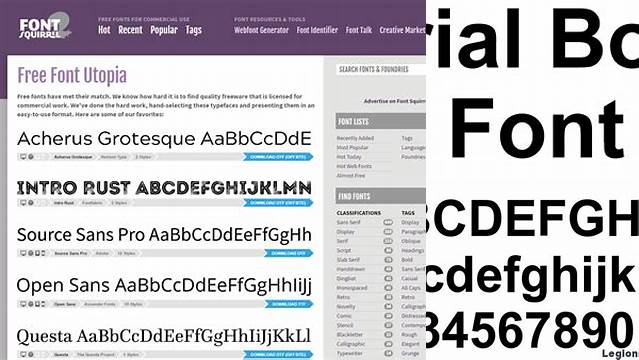
Arial Bold Font Free Download & Uses: A DaFont Guide
Arial Bold Font: Free Download from DaFont and Its Uses
Why Arial Bold Matters: A Deep Dive
Okay, so you're probably thinking, "Arial? Isn't that a bit... basic?" And sure, Arial itself is a pretty standard font. But Arial Bold? It’s in a league of its own. It's a workhorse, a reliable friend, and a design staple for a reason. It's the bold, attention-grabbing version that adds that extra punch you need. The first thing that makes Arial Bold so appealing is its incredible readability. Whether you're putting together a quick flyer, designing a website, or crafting a presentation, you need a font that's easy on the eyes, especially when you’re aiming for high visibility. Arial Bold nails this. Its clean, sans-serif design means that each letter is clear and distinct. No fancy swirls or extra fluff to distract your audience. Its versatility is another major plus. It blends seamlessly into various design contexts. You can use it in print or on digital platforms, and it works just as well. It is perfect for headlines and subheadings but can also work in shorter bodies of text. Another advantage is its widespread availability. You'll find Arial Bold on almost every computer. Its universal presence ensures your design looks the same to everyone, no matter their device. This is a big deal for branding and consistency. For instance, if you are designing a logo, having a font like Arial Bold already installed on most computers means that your designs will be displayed as intended, without any font substitution issues. The boldness of Arial Bold is its defining characteristic. It makes your text stand out. This is extremely important in a world of content overload where you are competing for attention. Using Arial Bold for key information, like a call to action or a headline, helps you immediately grab your audience's attention and directs them to what is most important. Let’s not forget that Arial Bold is a great choice for accessibility. The clear and defined characters make it very easy to read for everyone, even those with visual impairments. This is crucial in today’s world, where inclusive design is non-negotiable. By using Arial Bold, you're ensuring your content is accessible and easy for everyone to understand. And, let's be real, it’s a total time-saver. No need to spend ages searching for the perfect font when you already have a tried-and-true option right at your fingertips. It is ideal for fast projects where you need a reliable, impactful font without overthinking the design. Arial Bold is more than just a font. It's a design tool. It is a tool that can help you make your message clear, and attention-grabbing. It is versatile, accessible, and super easy to use. You'll be creating great designs in no time.
Creative Ways to Use Arial Bold in Your Designs
Okay, so you have Arial Bold installed. Now, what can you actually do with it? This font is incredibly versatile. It is like the little black dress of fonts. Let’s dive into some cool and creative ways to use it. Arial Bold is perfect for headlines and titles. Its bold weight makes it stand out. This is perfect for making sure your message gets noticed, whether you're creating a poster, a web page, or a presentation. Use it to grab attention and make your most important text pop. It works wonders for creating clear, readable headings that guide your audience through your content. Next, think about using Arial Bold for emphasis. Do you want to draw attention to a specific word or phrase within a body of text? Bolding it with Arial is a super effective way to do this. This is really handy for call-to-actions, key takeaways, or any information you want to highlight. It helps you direct your readers' eyes exactly where you want them to go. Create clean and professional-looking websites. You can use Arial Bold for headings, navigation menus, and other important elements. It is a great way to add a strong visual presence without cluttering up the design. The simplicity of Arial Bold makes it a great choice for a wide range of websites, from corporate sites to personal blogs. It will keep your website design clean and professional. Arial Bold is also excellent for creating easy-to-read infographics. The clarity of Arial Bold makes it easy for your audience to follow the information. This is because it ensures your data and insights are clearly presented. For a simple, effective look, pair Arial Bold with a lighter font for body text. The contrast can create a clear visual hierarchy that makes your content more engaging. Also, try using Arial Bold in your branding materials. The bold typeface is recognizable. It is great for logos, business cards, and other marketing materials. It will give your brand a modern, trustworthy look. Arial Bold works well in both print and digital formats. You can use it for everything from brochures to social media graphics. It's a flexible font. You can easily adapt to different sizes and contexts. It’s also great for making your design accessible. The clear and straightforward design of Arial Bold makes it easy to read for everyone. Ensure that your message is clear and easy to understand. Don't forget to play with colors. Experiment with different color combinations to make your text stand out. Whether you're going for a bold look or a more subtle design, Arial Bold provides a solid foundation for your creativity. Have fun and explore different ways to use it!
Important Considerations When Using Arial Bold
Before you go wild with Arial Bold, there are a few things to keep in mind. First off, remember that it's a very common font. While this can be a plus for accessibility and consistency, it also means your design might not feel super unique if you rely on it too heavily. To avoid this, try pairing it with other fonts or design elements to give your work some personality. Next, think about the context. Arial Bold is great, but it might not be the right choice for every project. For example, if you're going for a more elegant or artistic look, you might want to explore some different fonts. But if you need something clear, straightforward, and attention-grabbing, Arial Bold is a solid choice. Consider the legibility of your font. Make sure that it is easy to read, even in smaller sizes or at a distance. While Arial Bold is pretty readable, you'll want to make sure it works well with your other design elements and background colors. Keep in mind that the size of your font is also important. Too small, and no one will be able to read it. Too large, and it might be overwhelming. Find the right balance for your project and your target audience. Also, always make sure you have the right license for the font. Even though you're downloading from DaFont, double-check the terms of use. Some fonts are free for personal use but require a license for commercial projects. Being sure about this will prevent any legal issues later on. Test your design on different devices and platforms. What looks great on your computer might not look the same on a phone or tablet. Always preview your design on different screens and make adjustments as needed. Finally, remember that design is all about balance. You can use Arial Bold effectively, but it's best when combined with other elements, such as images, colors, and layouts. Strive for a cohesive design that communicates your message clearly and effectively. Keep these considerations in mind to make the most of Arial Bold in your designs.
Conclusion: Why Arial Bold and DaFont are a Perfect Match
There you have it, guys! Arial Bold is a fantastic font choice. It’s easy to read, versatile, and perfect for a wide range of design projects. Plus, the fact that you can download it for free from DaFont makes it a super accessible option for designers of all levels. Whether you're a seasoned pro or just starting, Arial Bold is definitely one to have in your font toolbox. Now go forth and create some amazing designs!